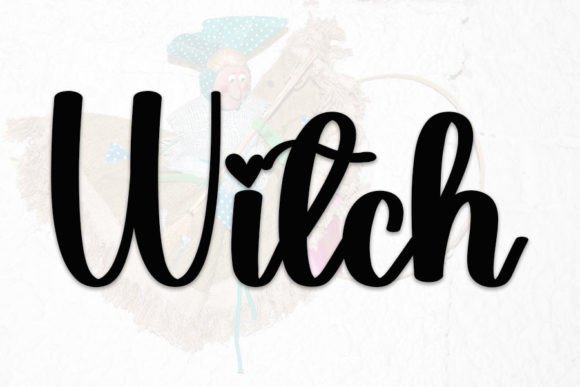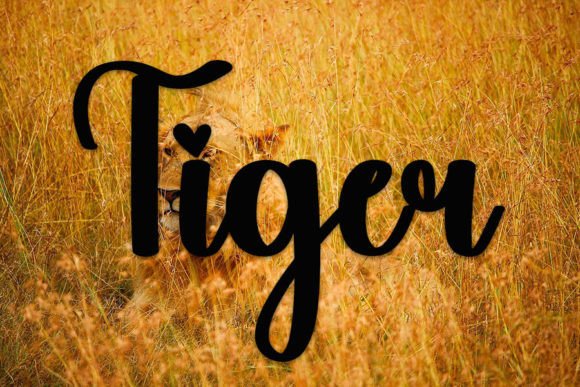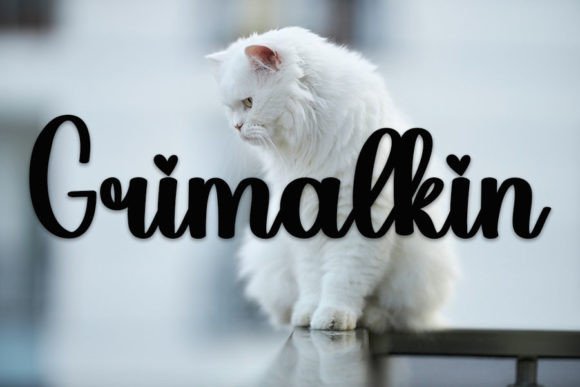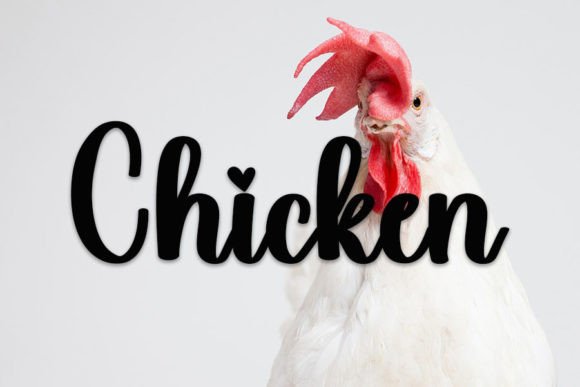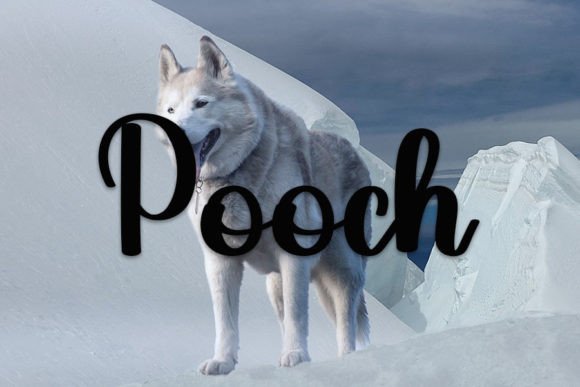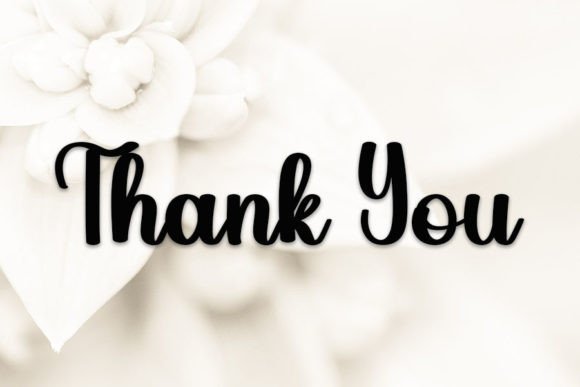
Introducing Disguised Font: Elevate Your Designs with Elegance and Sophistication
Are you on the hunt for a font that exudes elegance, sophistication, and a touch of timeless charm? Look no further than the Disguised Font, a stunning handwritten typeface that is sure to capture your heart. With its incredibly distinct style and beautiful, flowing lines, Disguised is the perfect addition to any design project, from crafting and branding to digital marketing and beyond.
The Beauty of Disguised Font
Disguised Font is a neat and beautiful handwritten font that boasts an elegant touch, making it an ideal choice for designers and crafters seeking to add a touch of sophistication to their work. Its unique, cursive style is both classic and modern, allowing it to seamlessly blend into a wide range of design aesthetics. Whether you’re creating a logo, crafting a social media post, or designing a website, Disguised Font is sure to make your project stand out from the crowd.
Key Features of Disguised Font
- Elegant and Sophisticated: Disguised Font features a beautiful, handwritten style that exudes elegance and sophistication.
- Timeless Style: Its classic, cursive design ensures that your work will remain stylish and relevant for years to come.
- Versatile: Perfect for a wide range of design projects, from logos and branding to digital marketing and crafting.
- Easy to Read: Despite its elegant style, Disguised Font remains highly legible, making it perfect for body text and headlines.
Disguised Font is a versatile typeface that is perfect for designers and crafters alike. Whether you’re working on a client project or creating something for your own brand, this font is sure to help you achieve your design goals. Its elegant style makes it an excellent choice for:
- Logos and Branding: Create a lasting impression with a beautiful, custom logo that showcases your brand’s personality.
- Digital Marketing: Elevate your social media posts, email campaigns, and website content with a touch of elegance and sophistication.
- Crafting and DIY: Add a personal touch to your crafting and DIY projects, from handmade cards to bespoke home decor.
Tips for Using Disguised Font